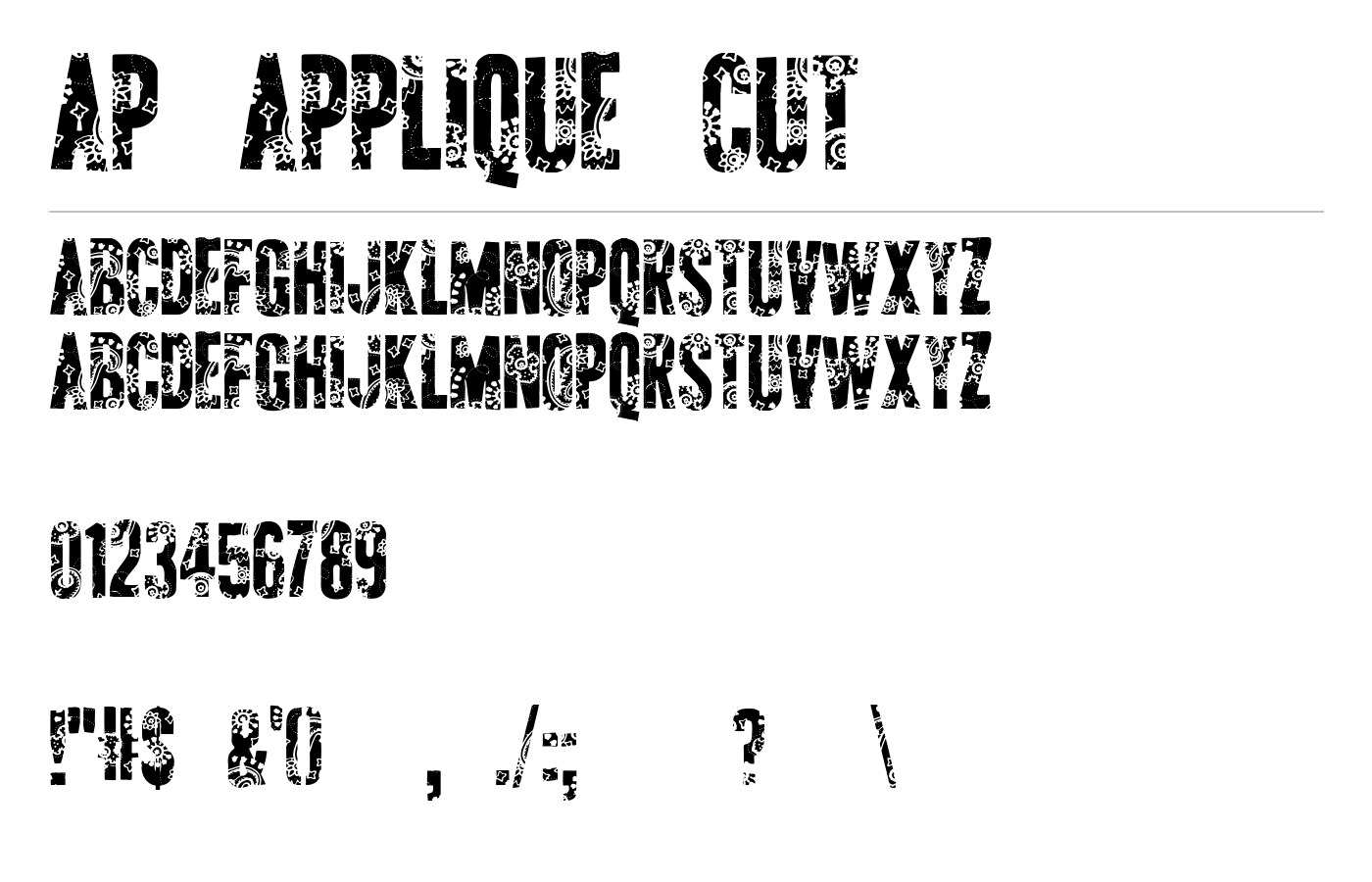
AP Applique Cut is a bold, decorative sans serif font with a condensed, sturdy form featuring intricate floral and paisley-inspired patterns within the letterforms. Its strong, blocky shapes create a playful yet vintage vibe, making it ideal for eye-catching headlines, craft-themed designs, and creative branding that seeks a handcrafted, artistic look. This font works particularly well in projects where a unique, textured appearance is needed to stand out and convey a sense of charm and creativity.
AP Applique Cut Font
About AP Applique Cut Font
| Designer | Arcane Palette Creative Design |